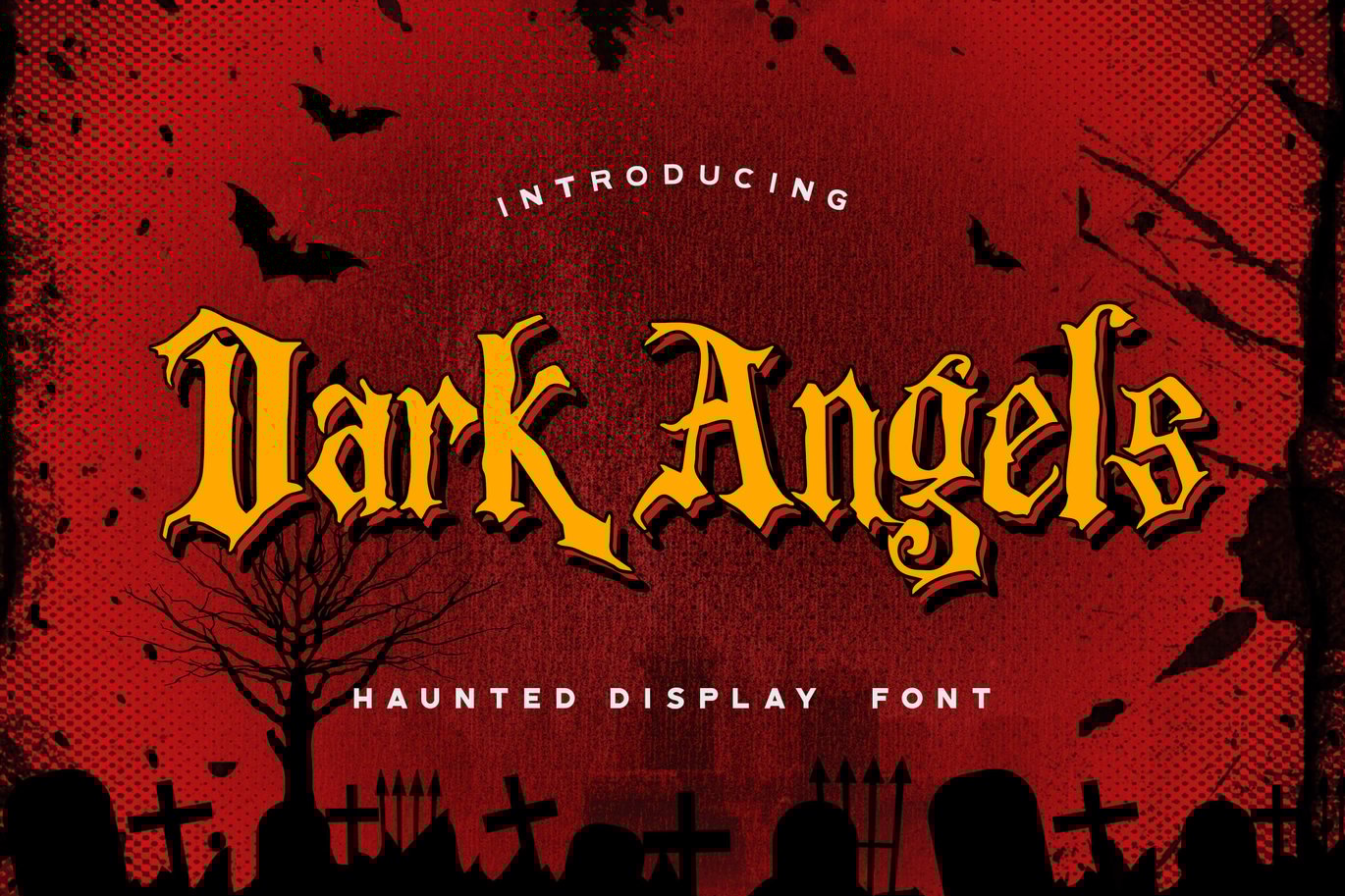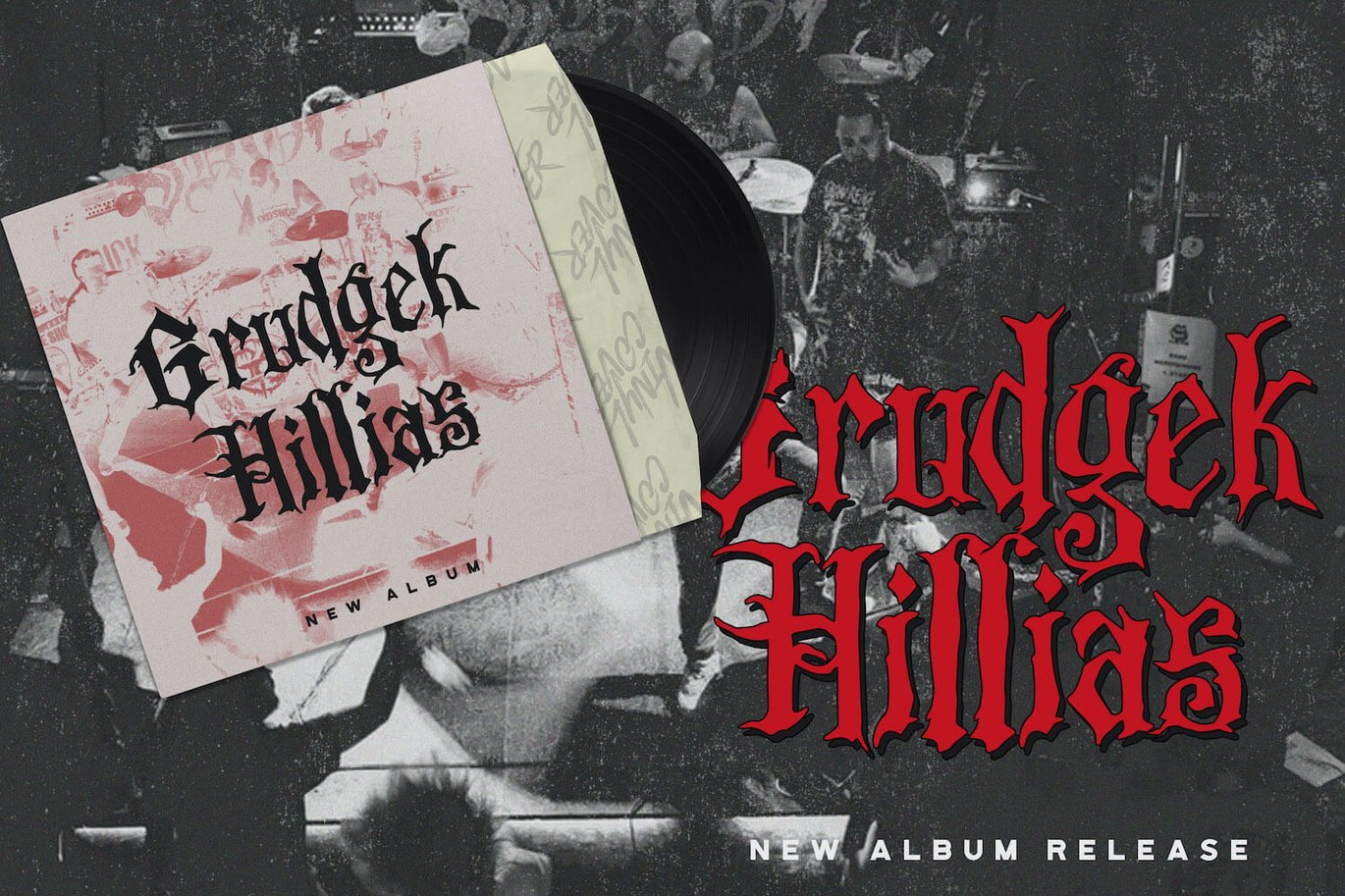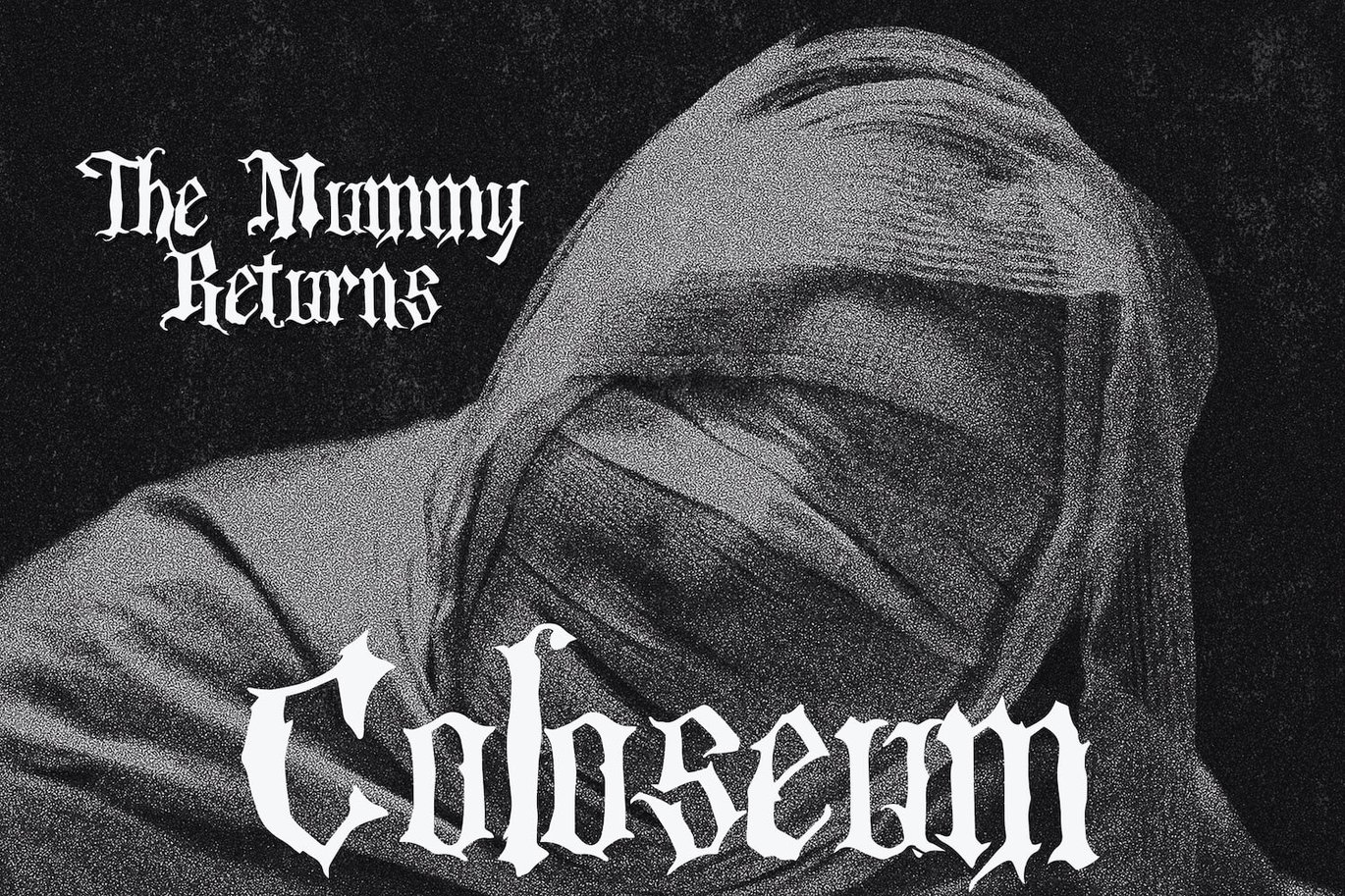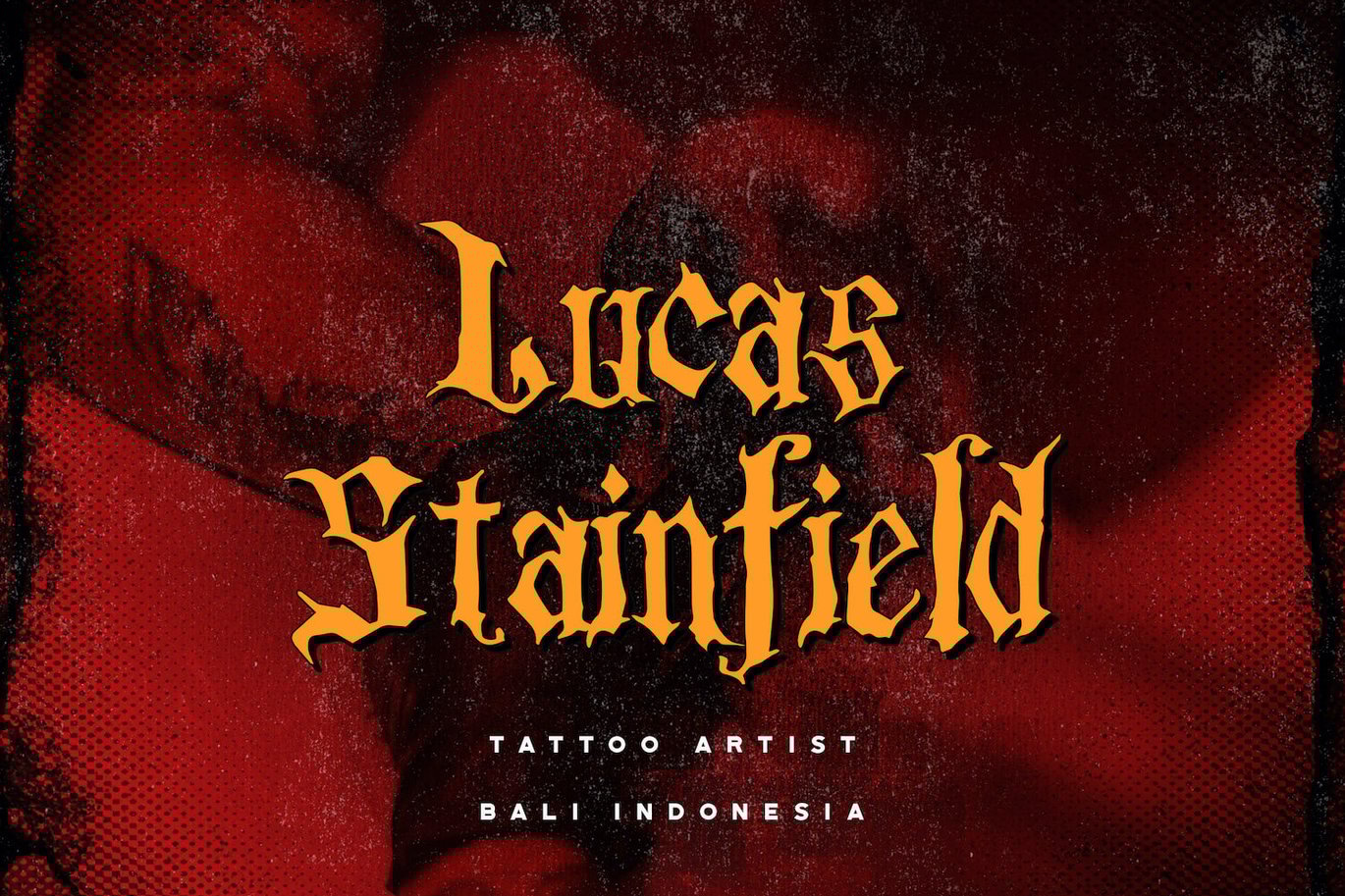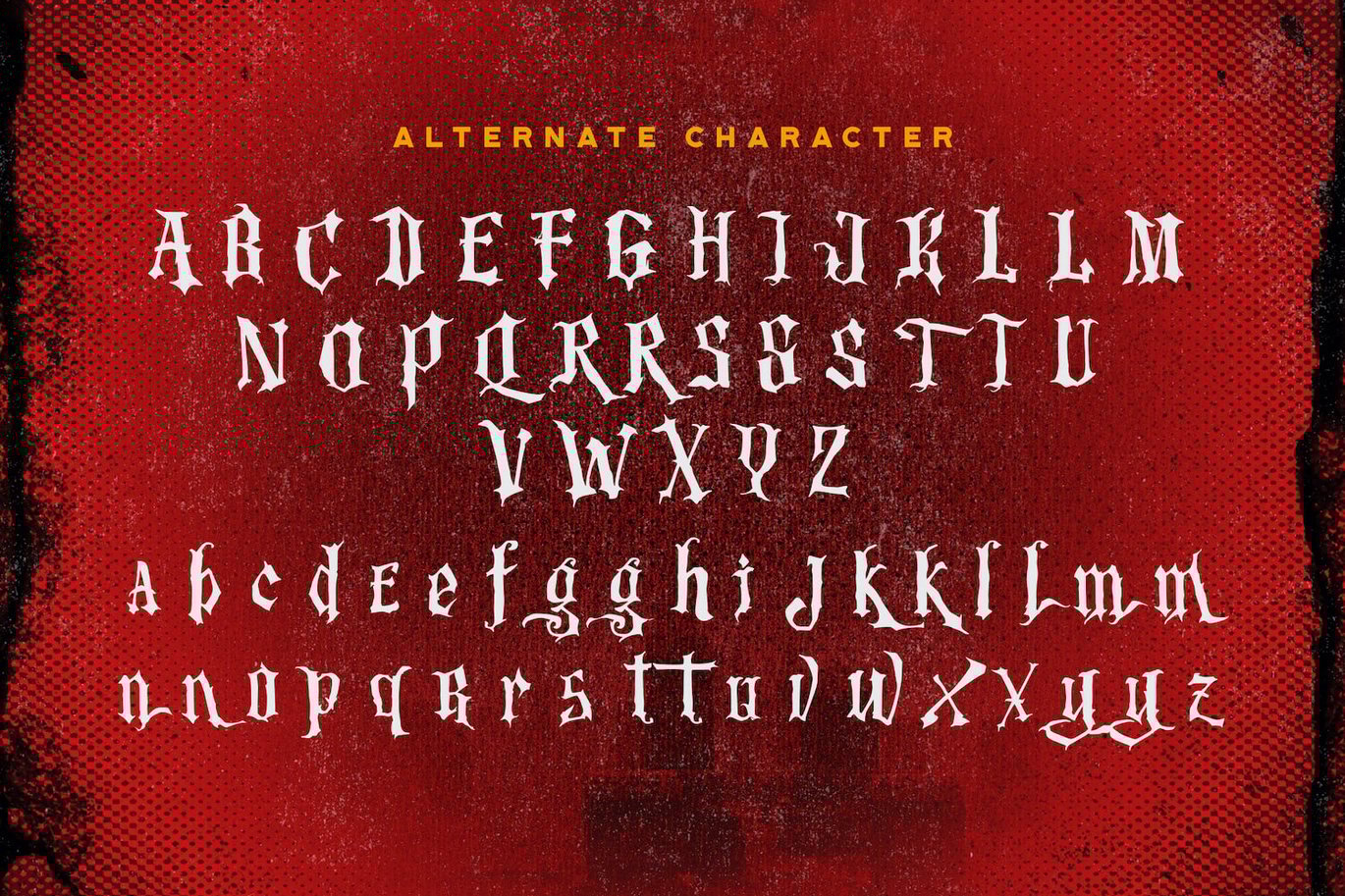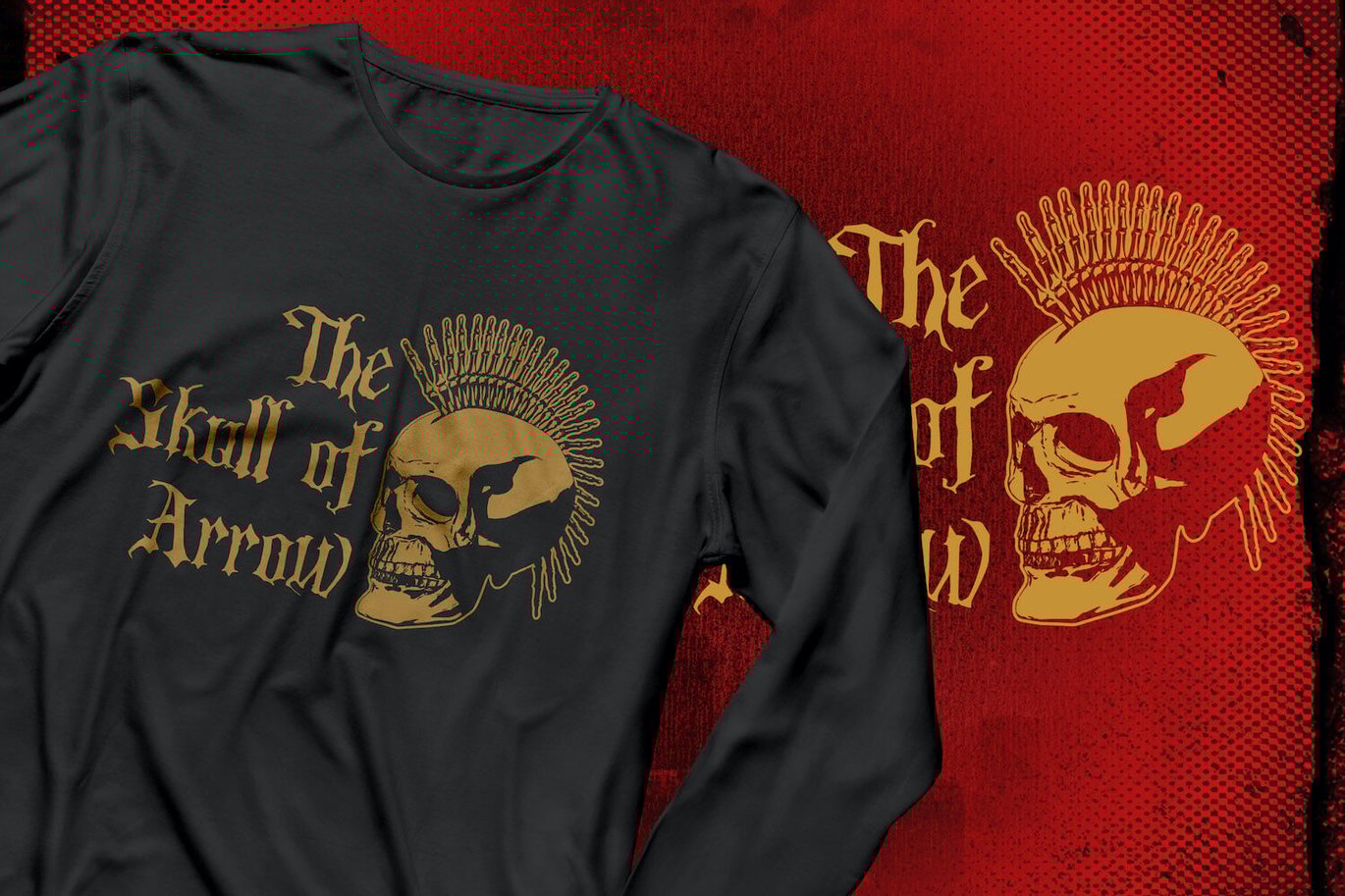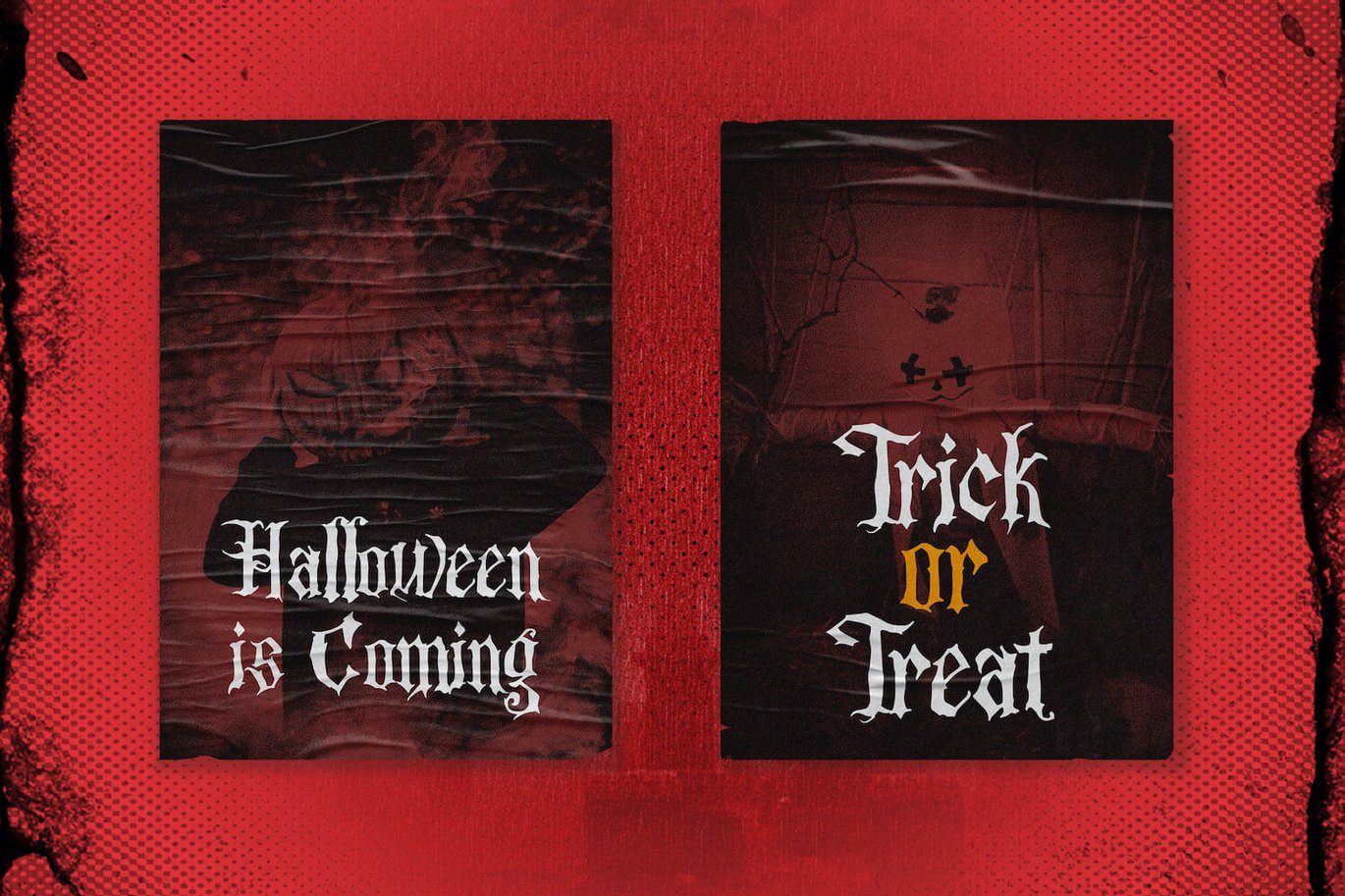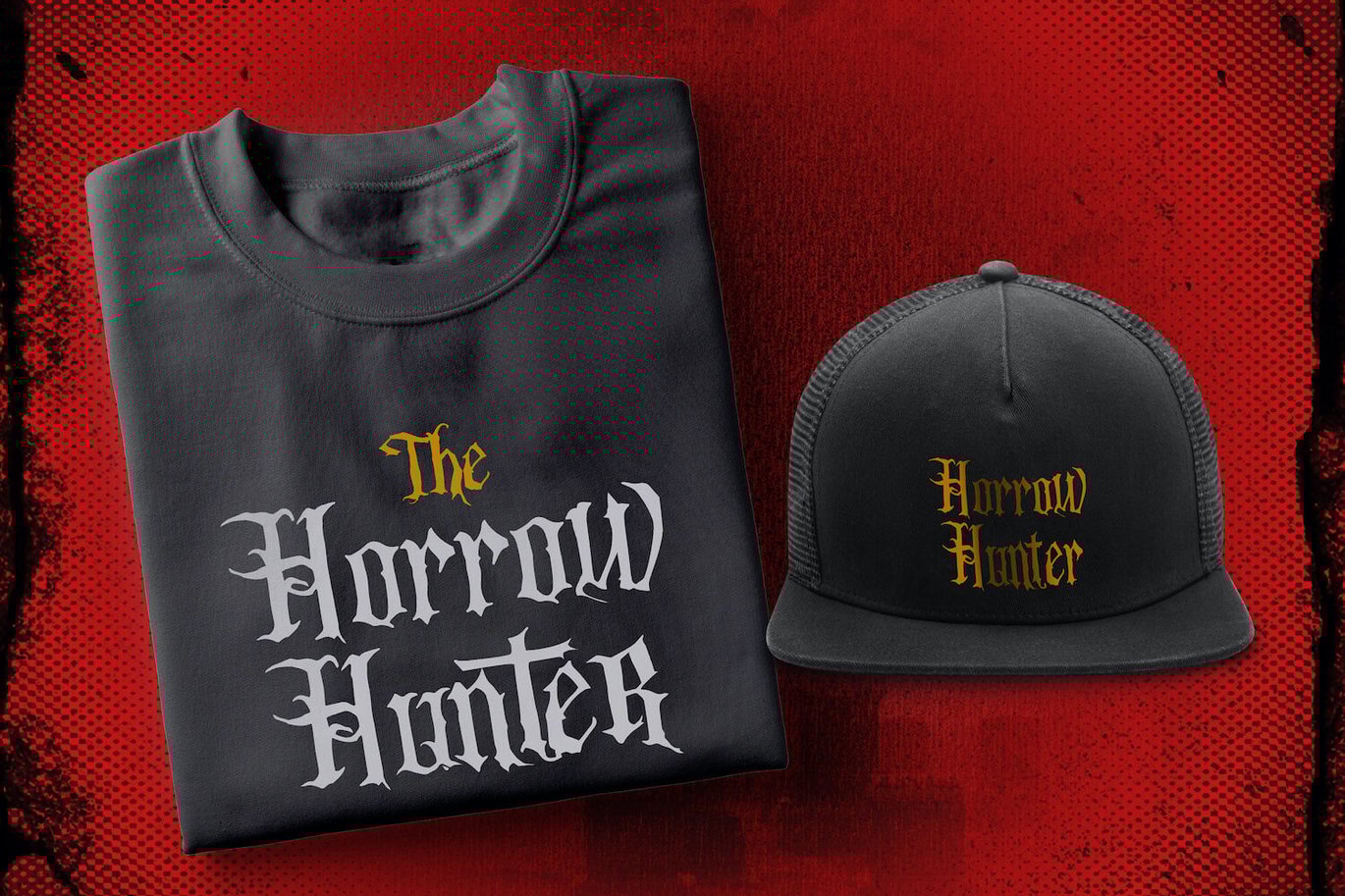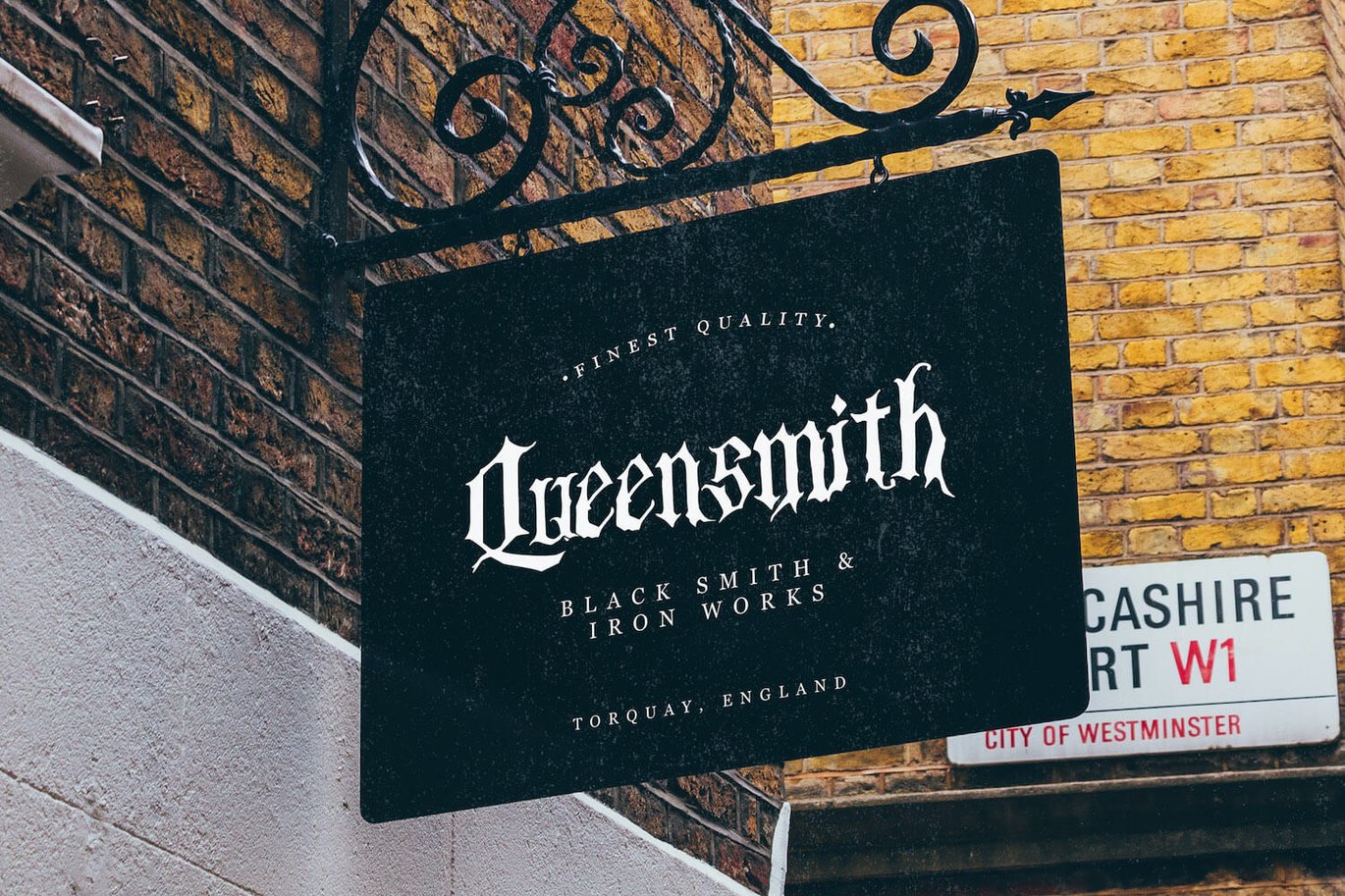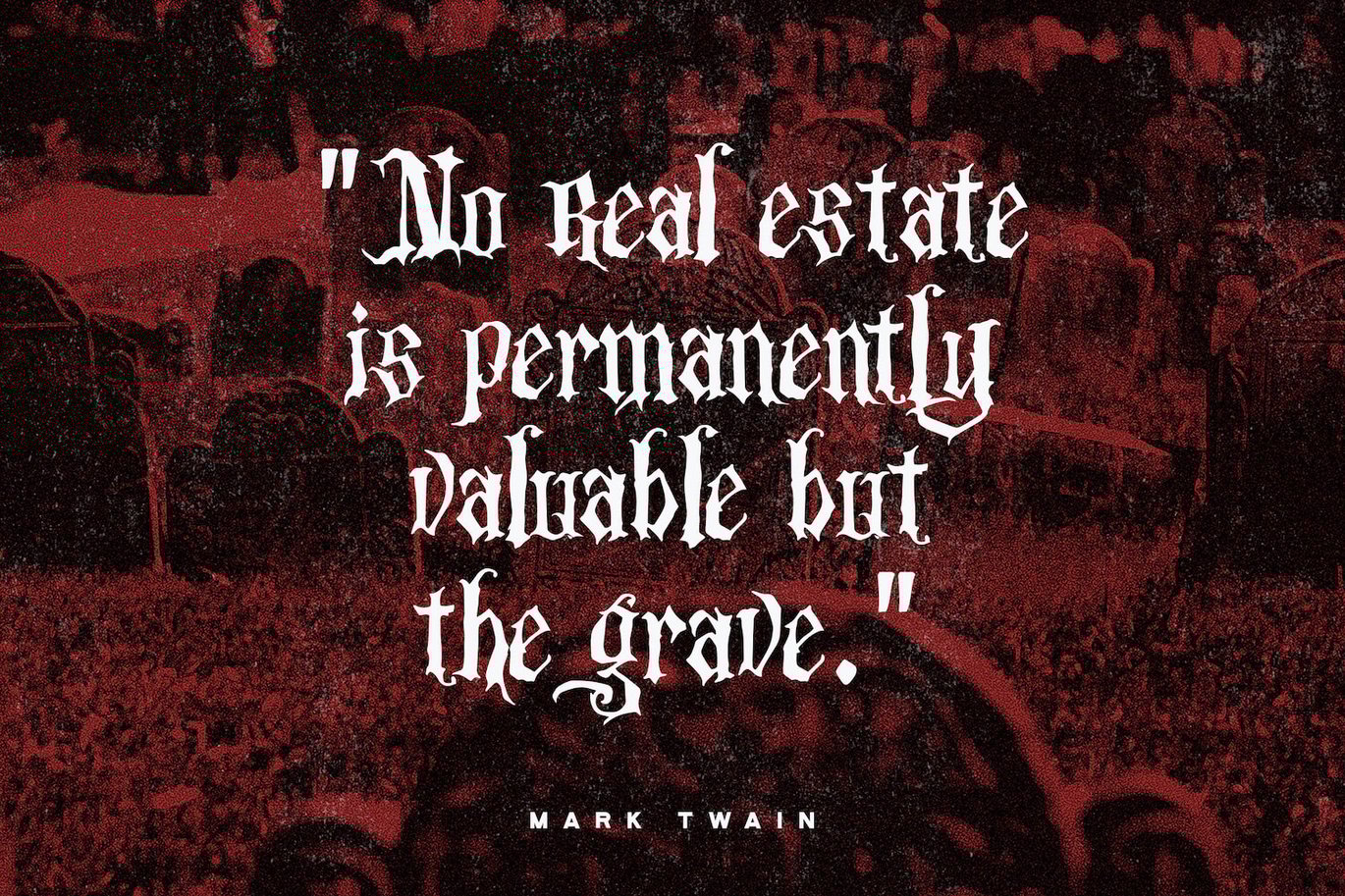
Dark Angels – Haunted Display Font
Introducing Dark Angels – Haunted Display Font
Dark Angels is a unique display font. It features a spooky feel that makes it perfect for any project that requires a horror-theme. Use it for movies, flyers, posters, Halloween crafting and much more!